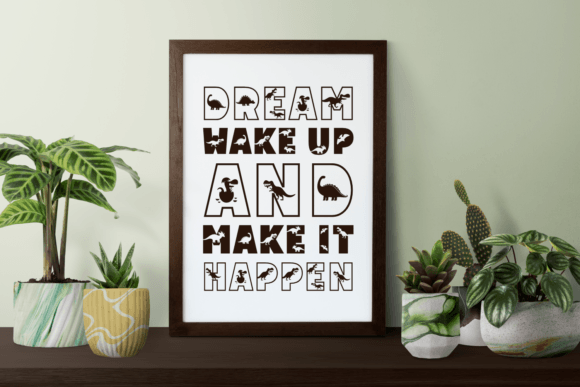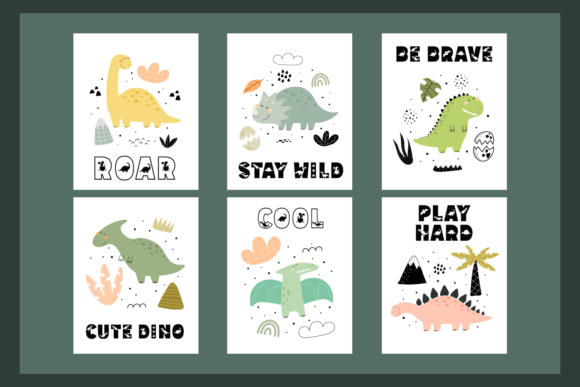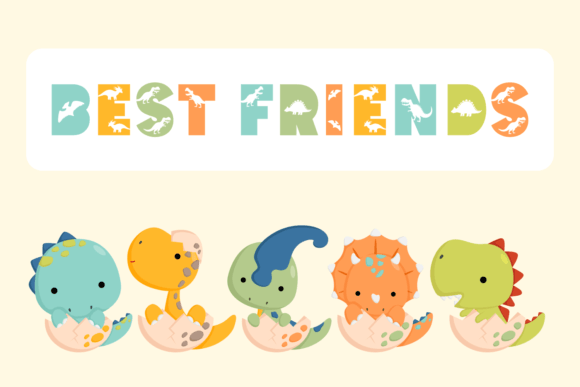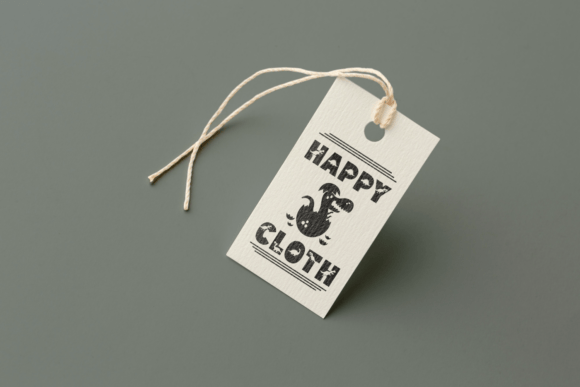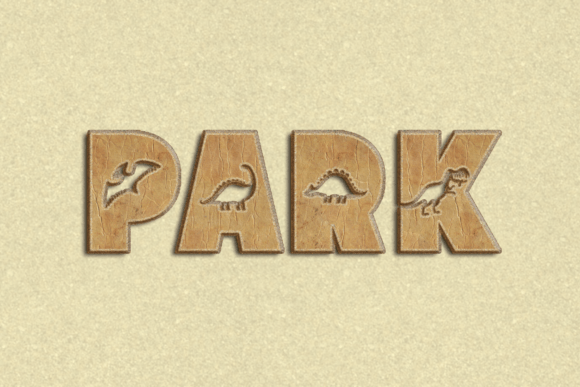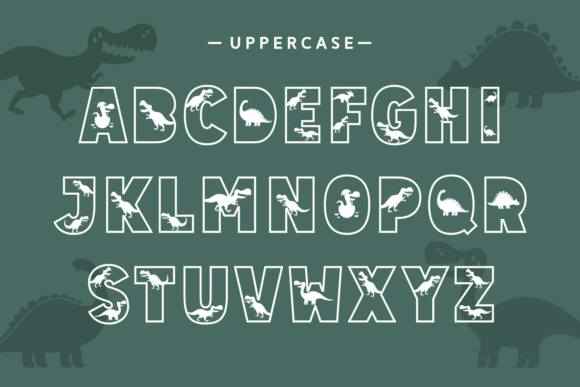
Unleash the Prehistoric Charm with Amazing Dino Font
Are you a fan of the Mesozoic Era? Do you love dinosaurs and want to add a touch of prehistoric charm to your designs? Look no further than the Amazing Dino Font! This adorable decorative font is perfect for anyone who wants to bring a smile to kids and adults alike. In this article, we’ll dive into the world of Amazing Dino Font and explore its features, uses, and benefits for designers and crafters.
What is Amazing Dino Font?
Amazing Dino Font is a playful, unique, and inviting font that’s sure to delight anyone who loves dinosaurs. This decorative font is designed to capture the spirit of the Mesozoic Era, with bold and quirky lettering that’s reminiscent of the ancient creatures that roamed the earth. Whether you’re working on a project for kids or adults, Amazing Dino Font is the perfect choice for adding a touch of whimsy and fun.
Features of Amazing Dino Font
So, what makes Amazing Dino Font so special? Here are just a few of its key features:
- Playful and unique design: Amazing Dino Font boasts a one-of-a-kind design that’s sure to stand out from the crowd. Its bold and quirky lettering is perfect for making a statement.
- Adorable dinosaur-inspired illustrations: The font features adorable dinosaur-inspired illustrations that add an extra touch of fun and personality to your designs.
- Perfect for kids and adults: Whether you’re working on a project for kids or adults, Amazing Dino Font is sure to delight. Its playful design is sure to bring a smile to anyone’s face.
Uses for Amazing Dino Font
So, what can you use Amazing Dino Font for? The possibilities are endless! Here are just a few ideas to get you started:
- Kids’ party invitations: Create custom invitations for kids’ parties that feature Amazing Dino Font and adorable dinosaur illustrations.
- Dino-themed crafts: Use Amazing Dino Font to add a touch of personality to your dino-themed crafts, such as signs, banners, and decorations.
- Educational materials: Make learning fun with Amazing Dino Font. Use it to create educational materials, such as worksheets, posters, and presentations, that feature dinosaurs.
- Graphic design projects: Add a touch of whimsy to your graphic design projects with Amazing Dino Font. It’s perfect for creating fun and playful designs that feature dinosaurs.
In conclusion, Amazing Dino Font is a must-have for designers and crafters who love dinosaurs and want to add a touch of prehistoric charm to their designs. Its playful, unique, and inviting design makes it perfect for kids and adults alike. With its easy-to-use design, adorable illustrations, and endless uses, Amazing Dino Font is sure to become a favorite in your design toolkit. So why wait? Download Amazing Dino Font today and start creating designs that are truly dino-mite!